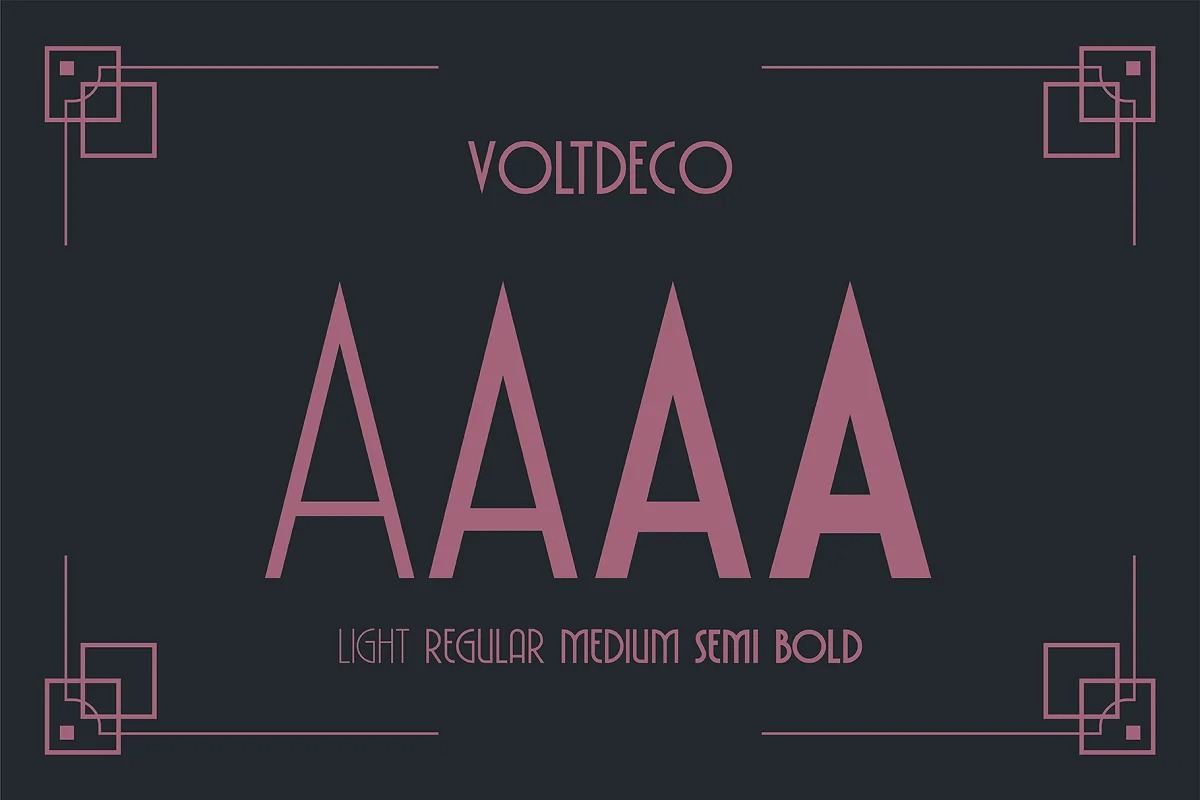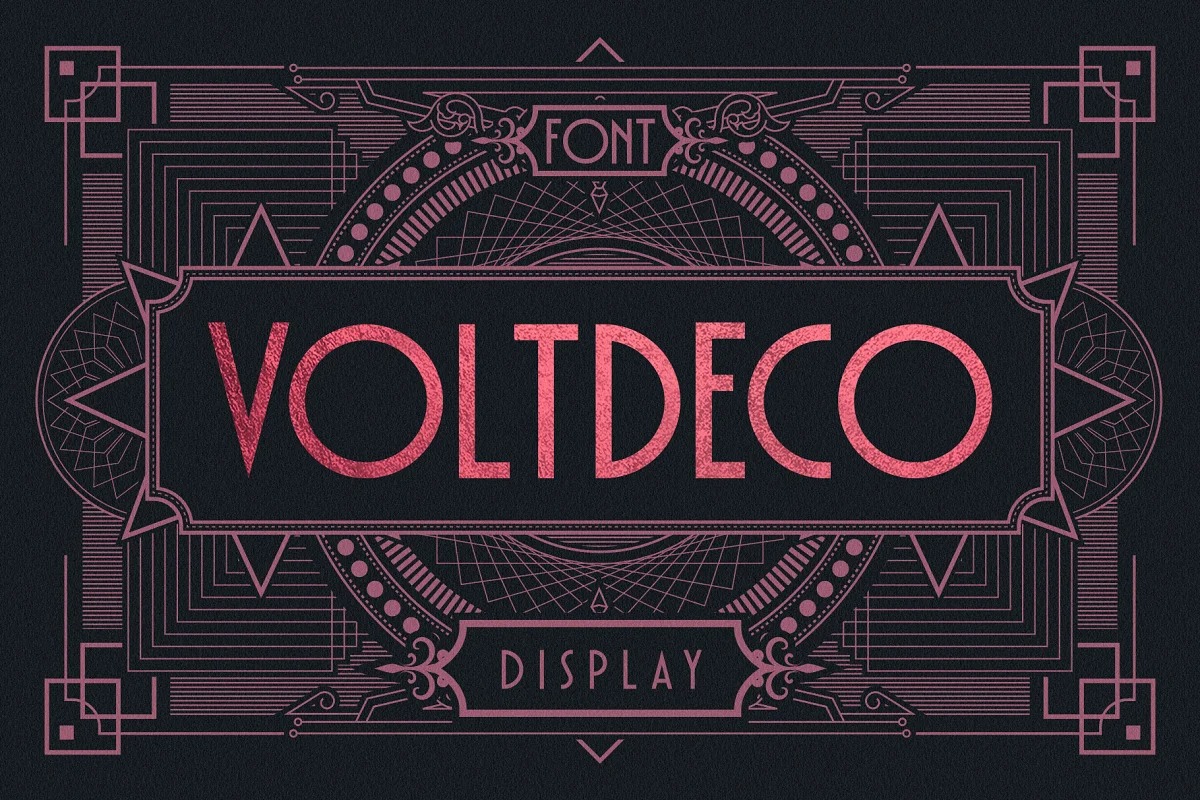
VOLTDECO Font
VOLTDECO Sans Serif Font
If you are needing a touch of casual modern San-Serif for your designs, this font was created for you! VOLTDECO is a bold font designed to be used as a headline in print or social media. This font is intended for designs about the world of sports because the font is stiff and hard.